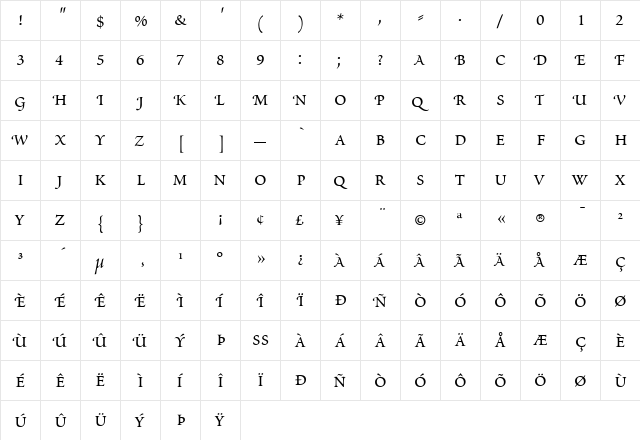
Scriptoria Small Caps SSi Regular
Design Context for Scriptoria Small Caps SSi Typeface
Scriptoria Small Caps SSi flows with the natural rhythm of handwritten lettering, making it ideal for designs that call for warmth and personal expression.
Font Pairing: Combine Scriptoria Small Caps SSi with a simple geometric sans for maximum contrast — the tension between flowing curves and clean structure is a classic typographic pairing.
Pro Tip: Pair Scriptoria Small Caps SSi with a clean sans-serif for supporting text. The contrast between fluid script and geometric structure creates an elegant typographic hierarchy.